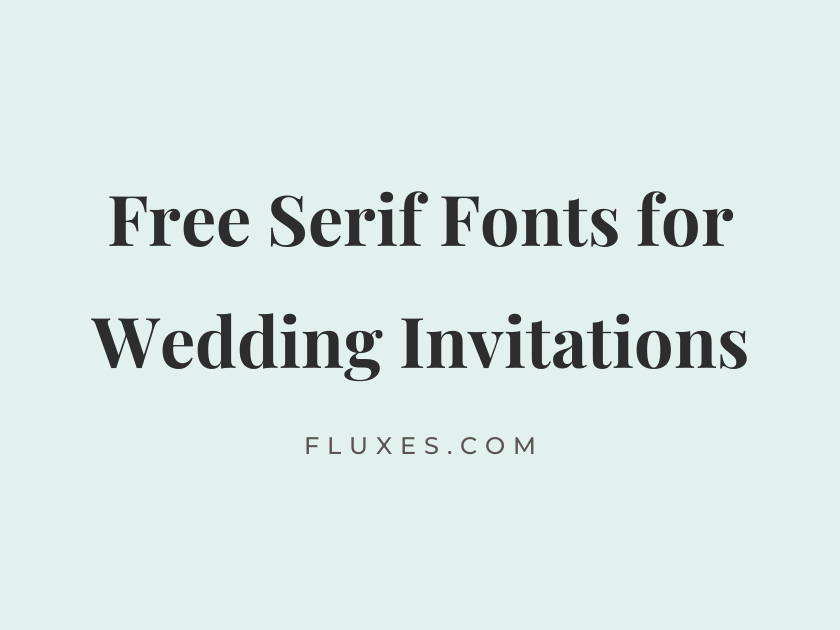
55 Best Free Serif Fonts for Wedding Invitations
Serif letterforms carry a sense of ceremony that suits wedding stationery better than almost any other style of type. The bracketed serifs, generous curves, and classical proportions found in the best free serif fonts on Google Fonts echo engraved invitations, calligraphy, and old-world letterpress work, which is exactly the mood most couples want to set before a guest even opens the envelope. Whether you’re designing a formal black-tie suite, a garden-party invite, or a minimalist modern card, there’s a free serif font here suited to save-the-dates, invitations, menus, and place cards alike.
Choosing the right one is mostly about matching weight and personality to your wedding’s tone: a slender didone for high-contrast formality, a warm old-style serif for a relaxed countryside affair, or a decorative display face reserved for names and monograms while a plainer serif handles the details.
1. Playfair Display
Playfair Display is the reigning favorite of wedding designers for good reason. Its dramatic thick-thin contrast and tall, confident capitals give it the polish of engraved copperplate type, making it a natural choice for a couple’s names or a headline “Save the Date.”
It reads best at larger sizes; set it too small and the fine hairlines can thin out and disappear on lower-resolution printing. Pair it with a restrained text serif like EB Garamond or Cormorant for the invitation’s finer print.
2. Cormorant Garamond
Refined and airy, Cormorant Garamond channels the delicate proportions of sixteenth-century French type foundries into a face that feels handwritten by candlelight. It has become something of a default for boho and garden weddings because it stays graceful even at generous letter-spacing.
Use it for names, quotes, or verses where a light touch matters more than legibility at a distance.
3. Cormorant
Cormorant is the display-leaning sibling in the same family, with slightly higher contrast and more theatrical flourishes on certain glyphs. It suits large headline text on an invitation cover far better than dense paragraphs of details.
4. Cormorant SC
Small caps built directly into the design make this variant ideal for monograms, initials, and formal name lines without needing to fake the effect in your design software.
5. Cinzel
Inspired by inscriptional capitals carved into Roman stone, Cinzel brings gravity and permanence to a wedding suite. It’s a strong match for classical, cathedral, or vineyard weddings where the invitation should feel timeless rather than trendy.
6. Cinzel Decorative
Take Cinzel’s classical bones and add ornamental swashes at the terminals, and you get this louder cousin, best reserved for a monogram or a single celebratory word rather than full sentences.
7. Prata
Prata has a quiet confidence: moderate contrast, rounded serif brackets, and a warmth that keeps it from feeling cold or overly formal. It works nicely as a headline font on invitations with a softer, romantic color palette.
8. Italiana
Slender, wide, and unmistakably Italian in spirit, this font trades warmth for elegance. Its wide letter-spacing at display sizes gives couples’ names a sense of ceremony, though its lightness means it needs a dark background or bold color to stay legible.
9. Bodoni Moda
Bodoni Moda revives the extreme thick-thin contrast of Giambattista Bodoni’s original didone with modern optical sizing built in, so it stays crisp whether set as a giant headline or smaller supporting copy. This versatility makes it a favorite for couples chasing a high-fashion, editorial wedding look.
It pairs beautifully with a plain sans for logistics text, letting the didone drama stay reserved for names and dates.
10. Marcellus
Marcellus keeps its serifs understated and its proportions calm, which makes it surprisingly flexible: formal enough for a black-tie invite, relaxed enough for a beachside one.
11. Marcellus SC
The small-caps counterpart is worth keeping on hand specifically for name lines and section headers where full capitals would feel too heavy.
12. Gilda Display
A compact, slightly condensed serif with old-style charm, Gilda Display suits shorter headline phrases and menu titles rather than long paragraphs; its narrow set width lets it squeeze gracefully onto place cards.
13. Vidaloka
Vidaloka has the relaxed, slightly rounded warmth of a hand-lettered sign rather than a rigid formal serif, which suits rustic and vineyard wedding themes particularly well.
With so many elegant, free serif options available, building a cohesive and genuinely beautiful wedding suite is mostly a matter of narrowing down mood, not settling for the first font that looks nice in a preview.